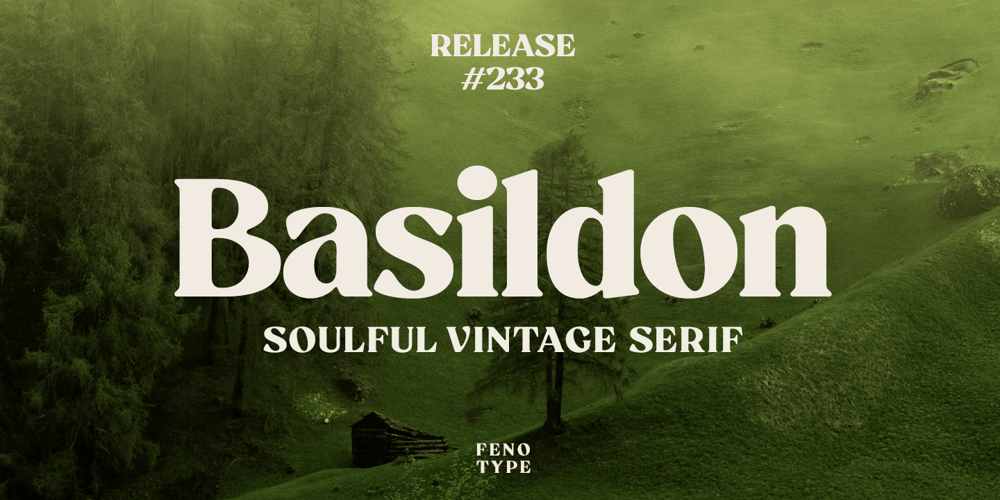
Basildon Font Family was designed by Emil Karl Bertell and published by Fenotype. Basildon contains 1 styles and family package options. Take a tour to Basildon: It’s a vintage inspired serif with soft features and a robust character. Full of classy elegance, it invites you to a nostalgic trip into the years when sun always shone in the summer, and winters were draped in snow. Expect nothing short of hearty personal service at the gas station. Take it granted that all the delicacies at the cafeteria are, as goes without saying, hand made and no-one bothers to call it artisanal. Despite its old-fashioned appearance Basildon is equipped with plenty of modern OpenType technology: Standard Ligatures to prevent certain letter combinations from colliding, some Discretionary ligatures for fun i_t, i_f, or r_i -combinations, and an array of Swash, Stylistic and Titling Alternates for decorative lettering. Explore for even more variations of lowercase t, set in Stylistic Sets 1-3.